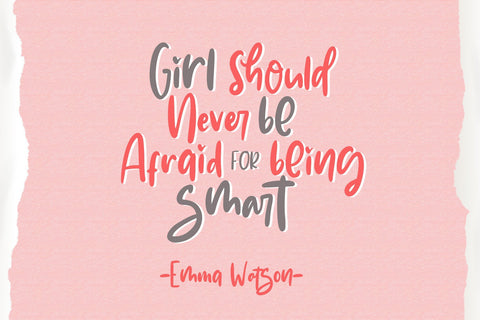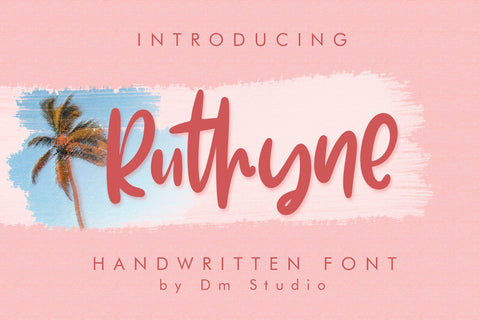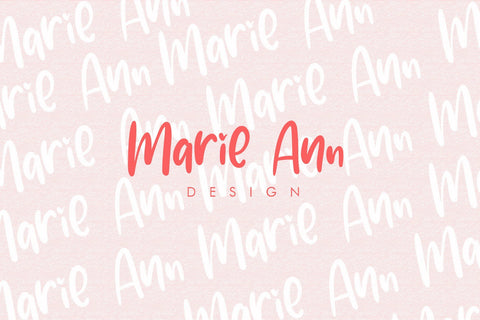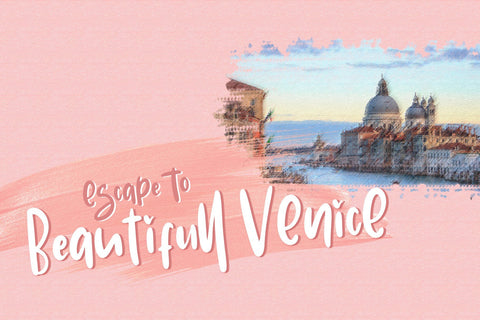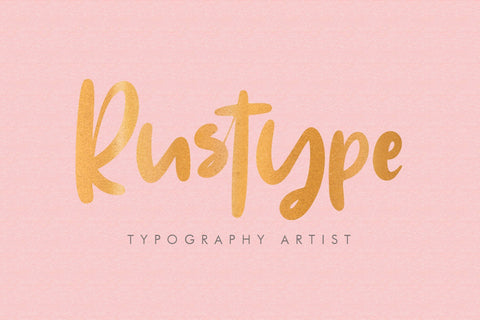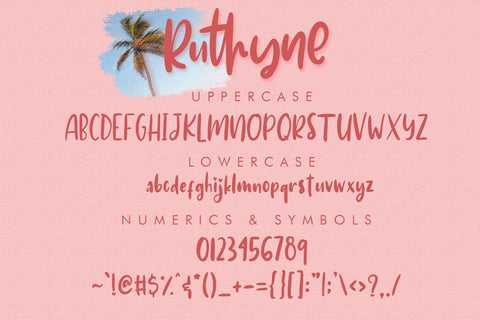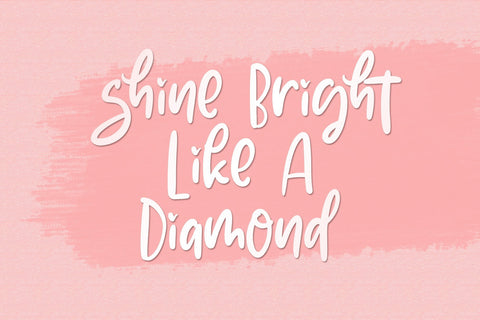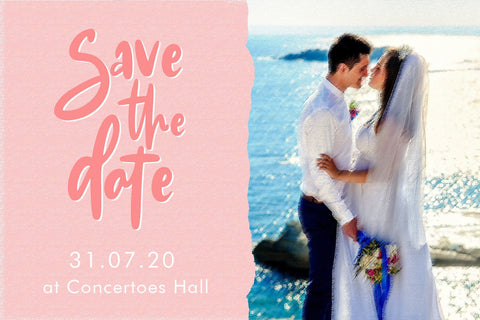
Ruthyne - Handwritten Font
This beautiful, casual, and chic handwritten script font great for
modern branding, invitation, printing projects, quotes, application,
posters,promotion and much more!
Highlights
- Standard character set, including uppercase,lowercase,numerals and symbols
- With extra alternative glyphs and ligatures
- Support Multilingual